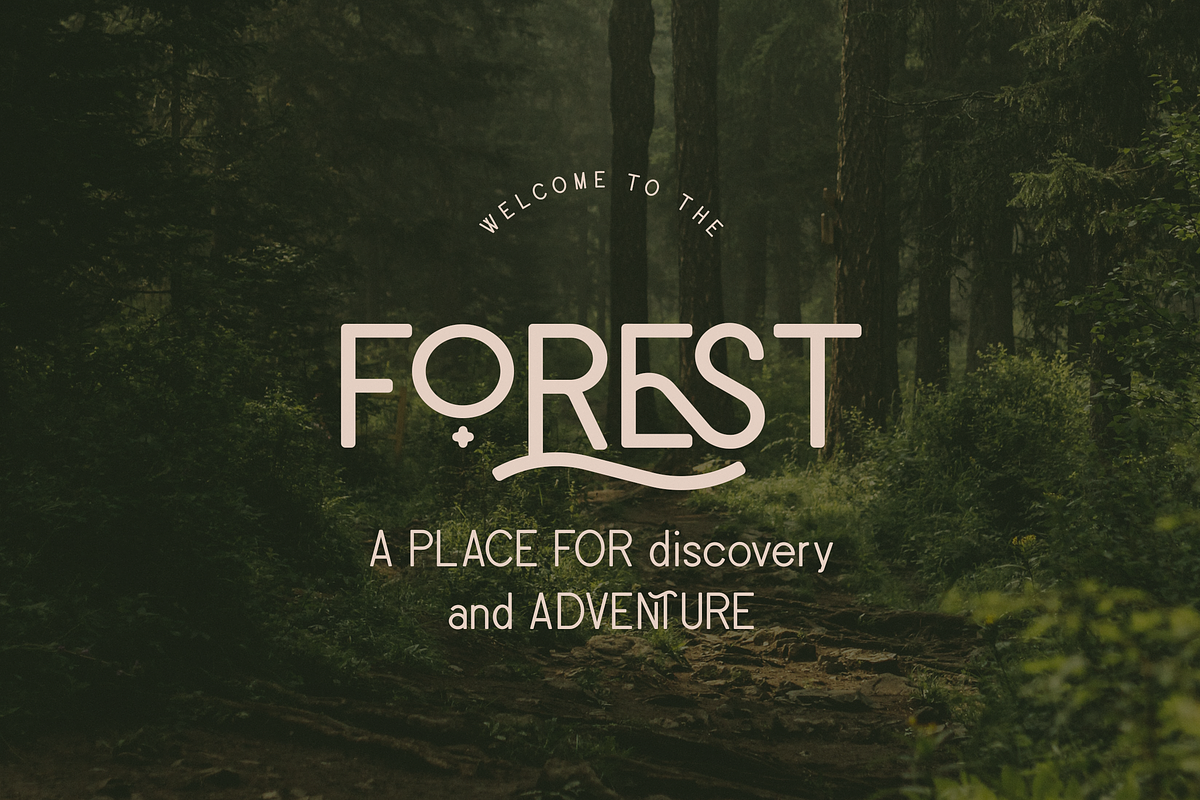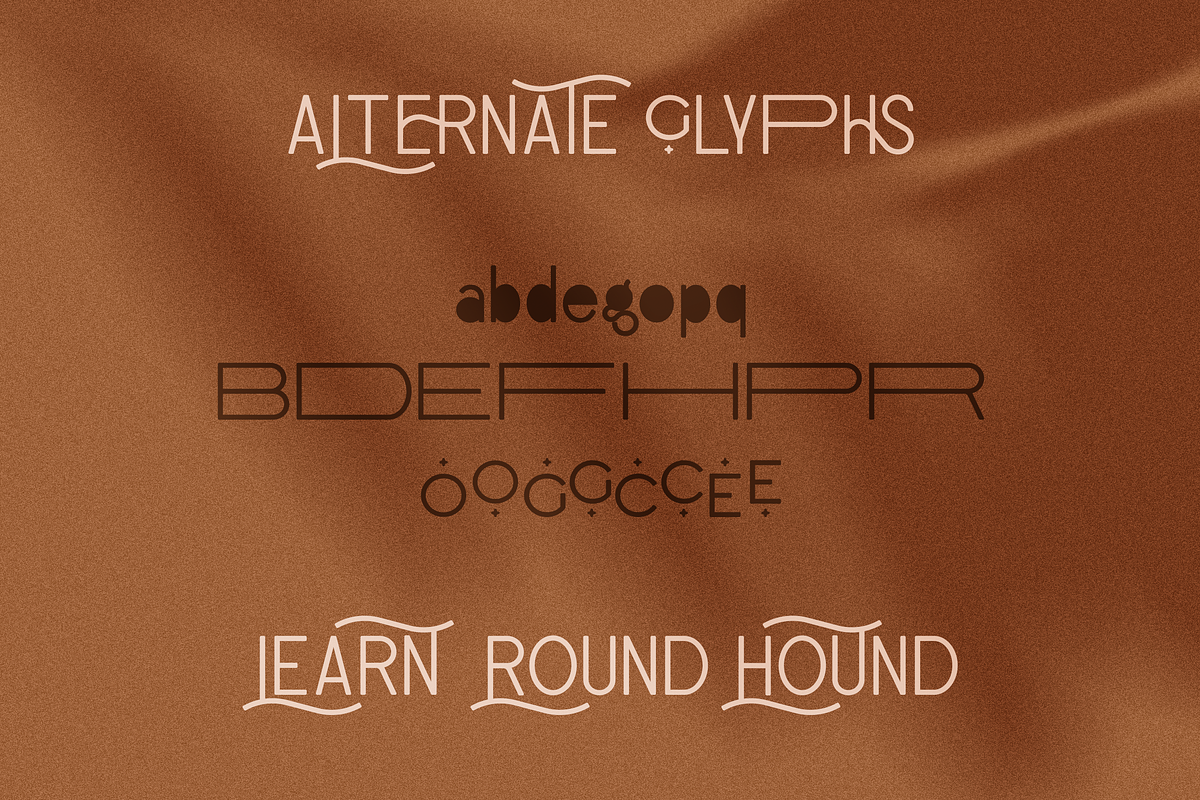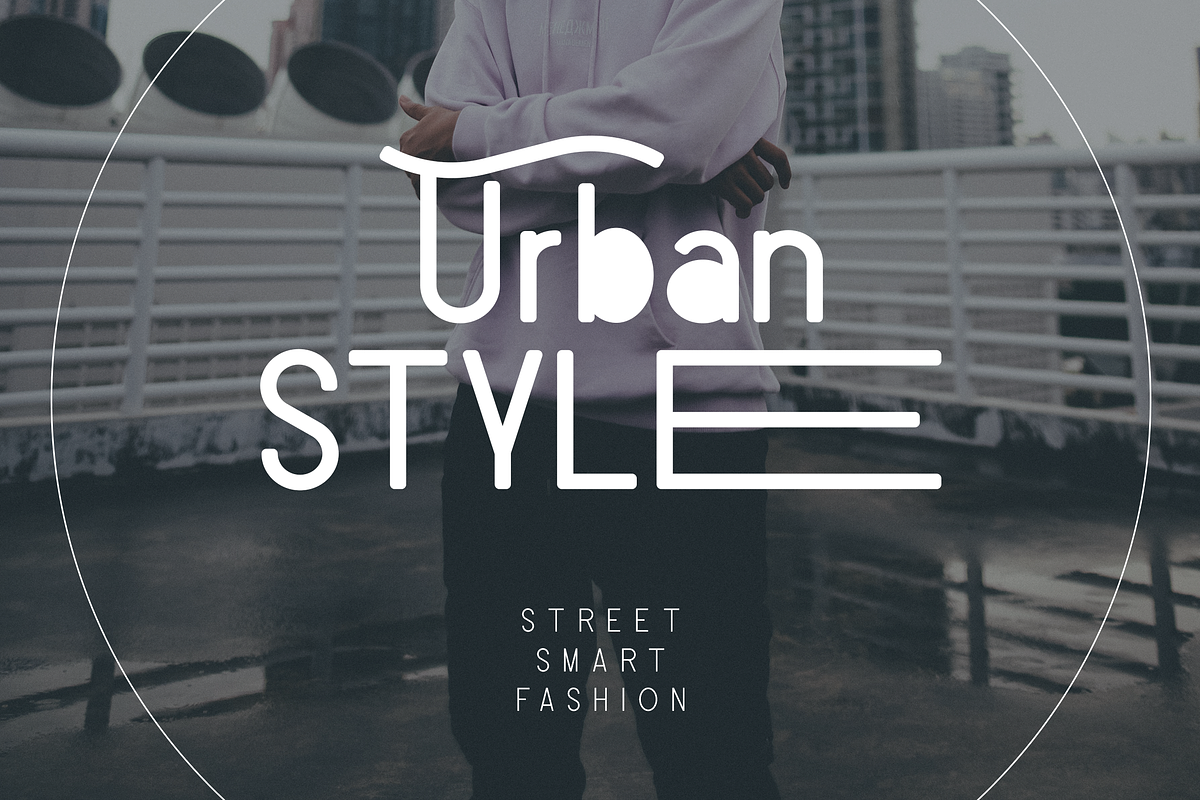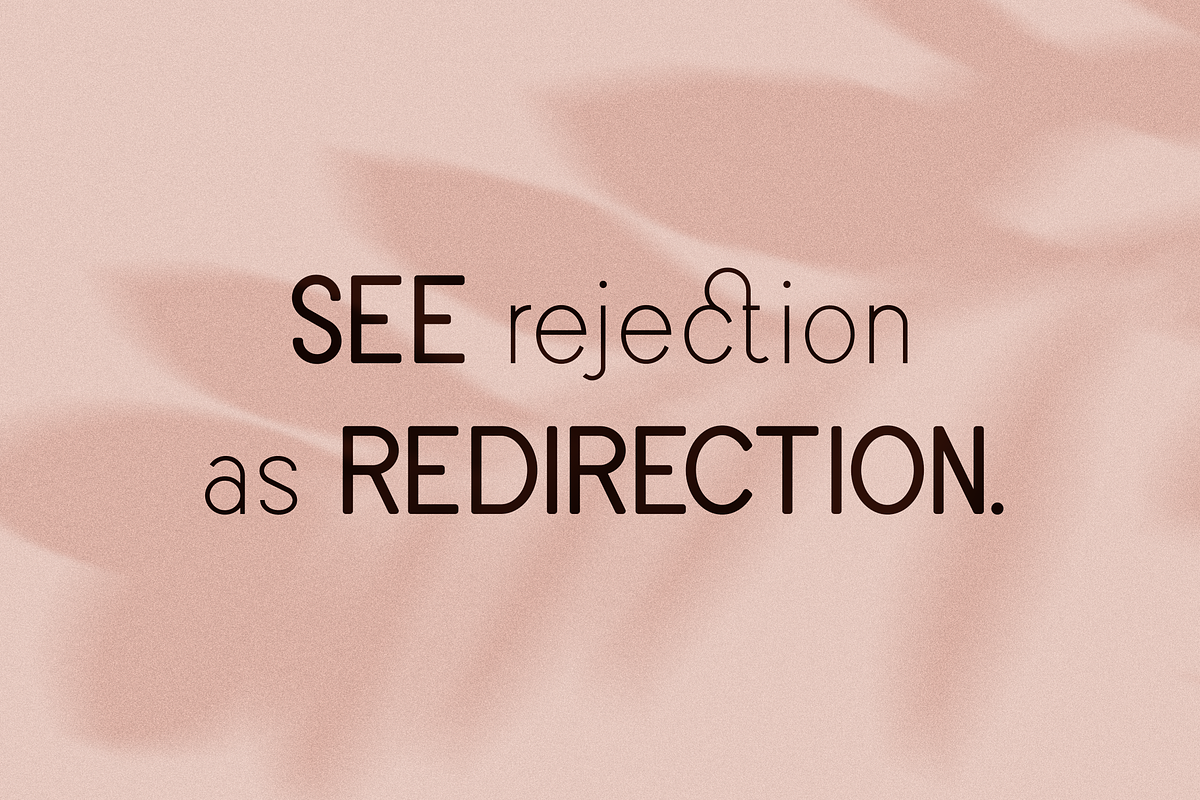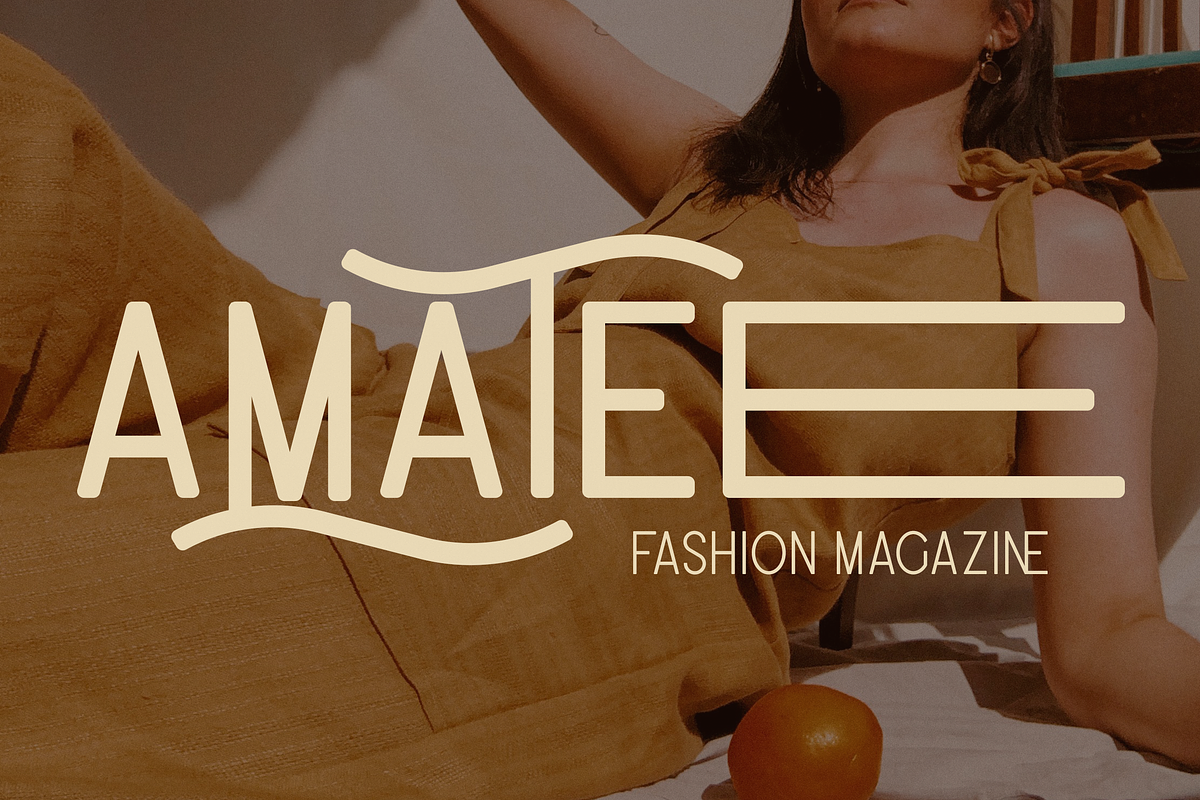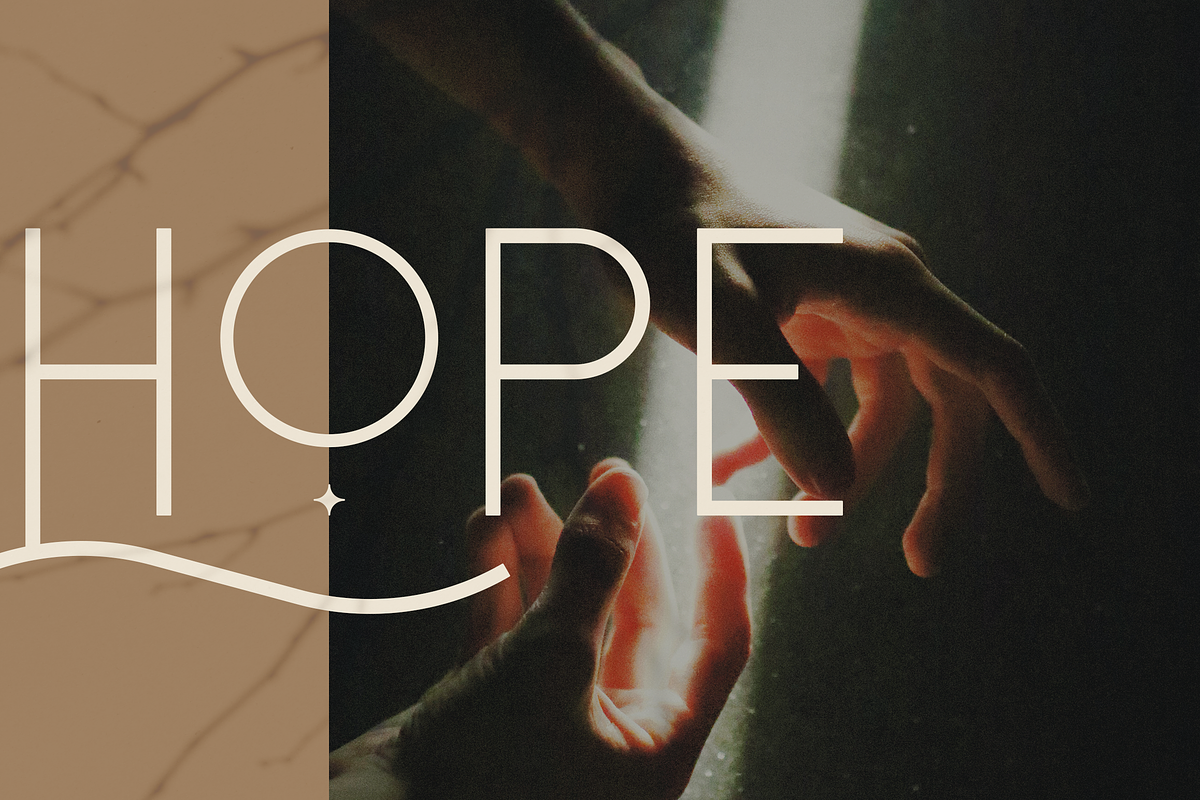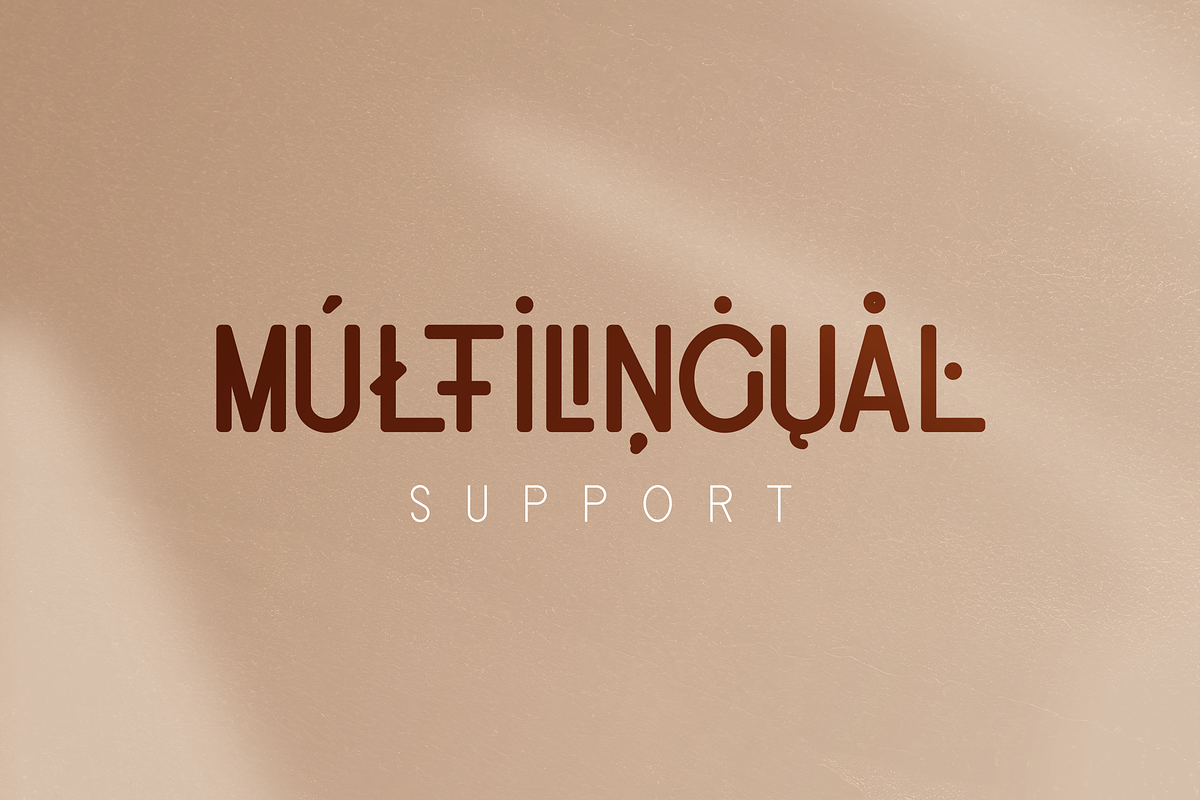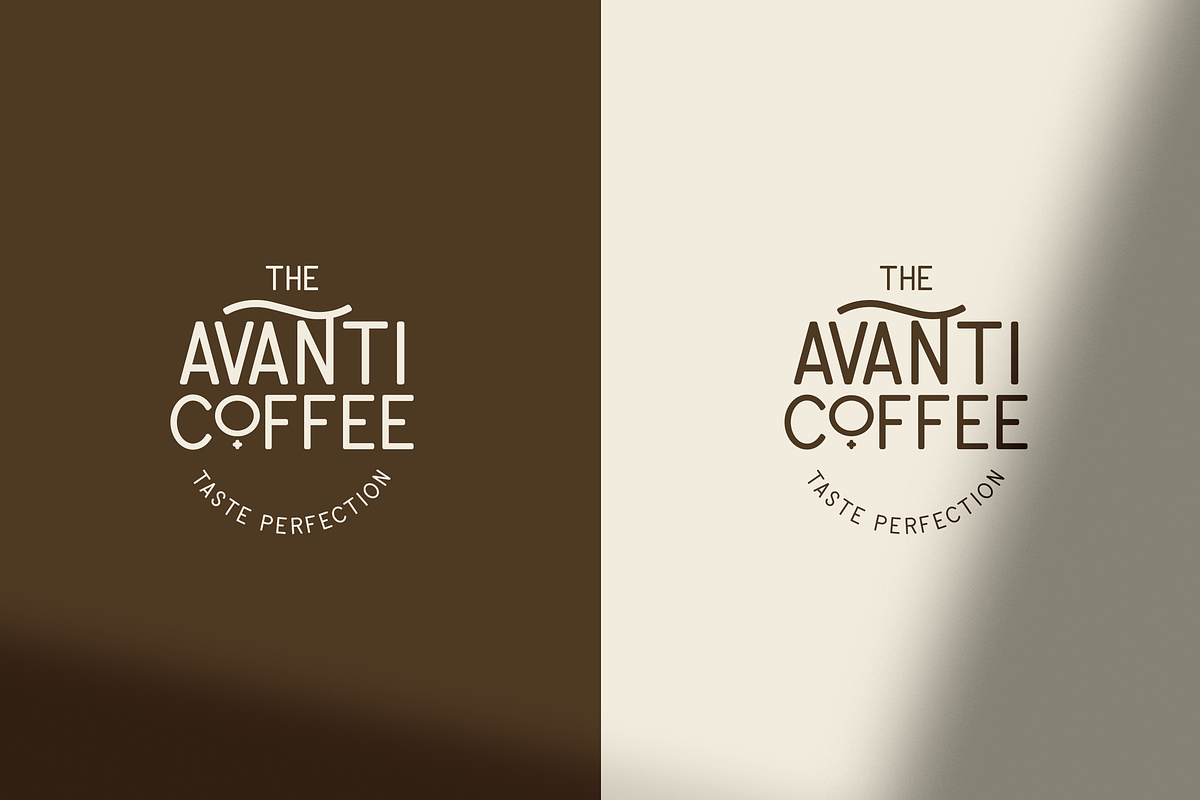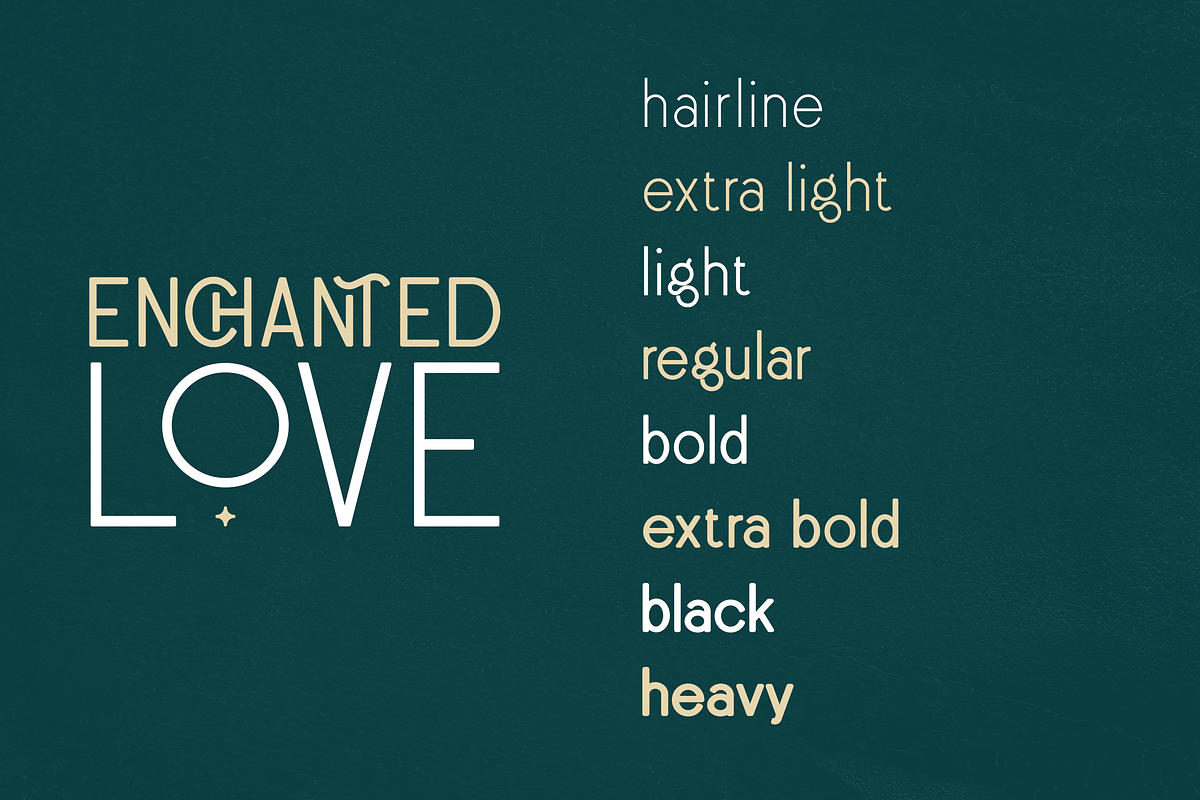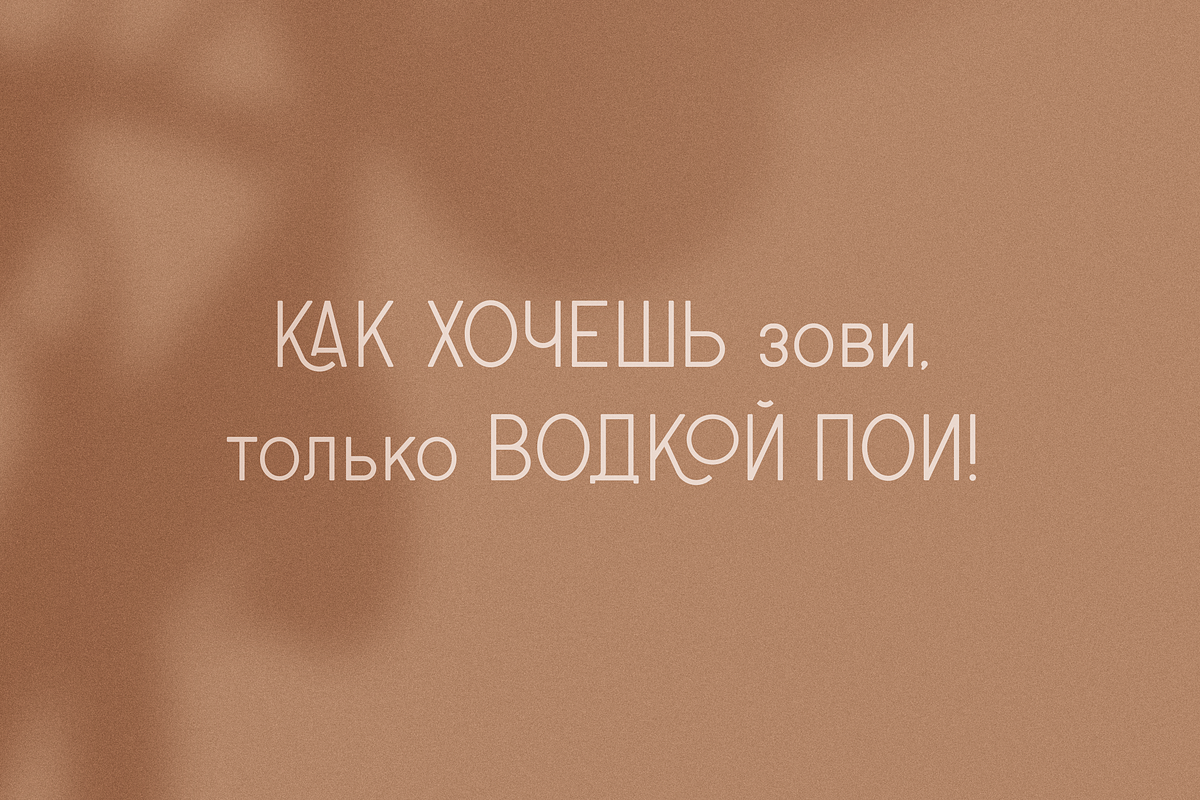
Enchanted Love - Sans Serif Typeface
Introducing Enchanted Love - Elegant Sans Serif Typeface - 8 weights
Enchanted Love is classic yet creative typeface loaded with 8 fonts, alternate and ligature glyphs to make you typography truly unique!
Language Support : Belarusian, Bosnian, Bulgarian, Chechen, Macedonian, Russian, Serbian, Afrikaans, Albanian, Asu, Basque, Bemba, Bena, Breton, Chiga, Colognian, Cornish, Czech, Danish, Dutch, Embu, English, Estronian, Faroese, Filipino, Finnish, French, Friulian, Galician, Ganda, German, Gusii, Hungarian, Indonesian, Irish, Italian, Jola-Fonyi, Kabuverdianu, Kalenjin, Kamba, Kikuyu, Kinyarwadna, Litvian, Lithuanian, Lower Sorbian, Luo, Luxembourish, Luyia, Machame, Makhuwa-Meetoo, Makonde, Malagasy, Maltese, Manx, Meru, Morisyen, North Ndebele, Norwegian Bokm ål, Norwegian Nynorsk, Nyankole, Ormo, Polish, Portuguese, Quechua, Romanian, Romansh, Rombo, Rundi, Rwa, Samburu, Sango, Sangu, Scottish Gaelic, Sena, Shambala, Shona, Slovak, Soga, Somali, Spanish, Swahili, Swedish, Swiss German, Taita, Teso, Turkish, Ukrainian, Upper Sorbian, Uzbek (Latin), Volap ük, Vunjo, Walser, Welsh, Western Frisian, Zulu
- Uppercase, lowercase, numeral, punctuation & Symbol -Hairline, Extra light, Light, Regular, Bold, Extra Bold, Black and Heavy versions
- Cyrillic support
- ligature glyphs
- alternates
- Multilingual support - 95 languages